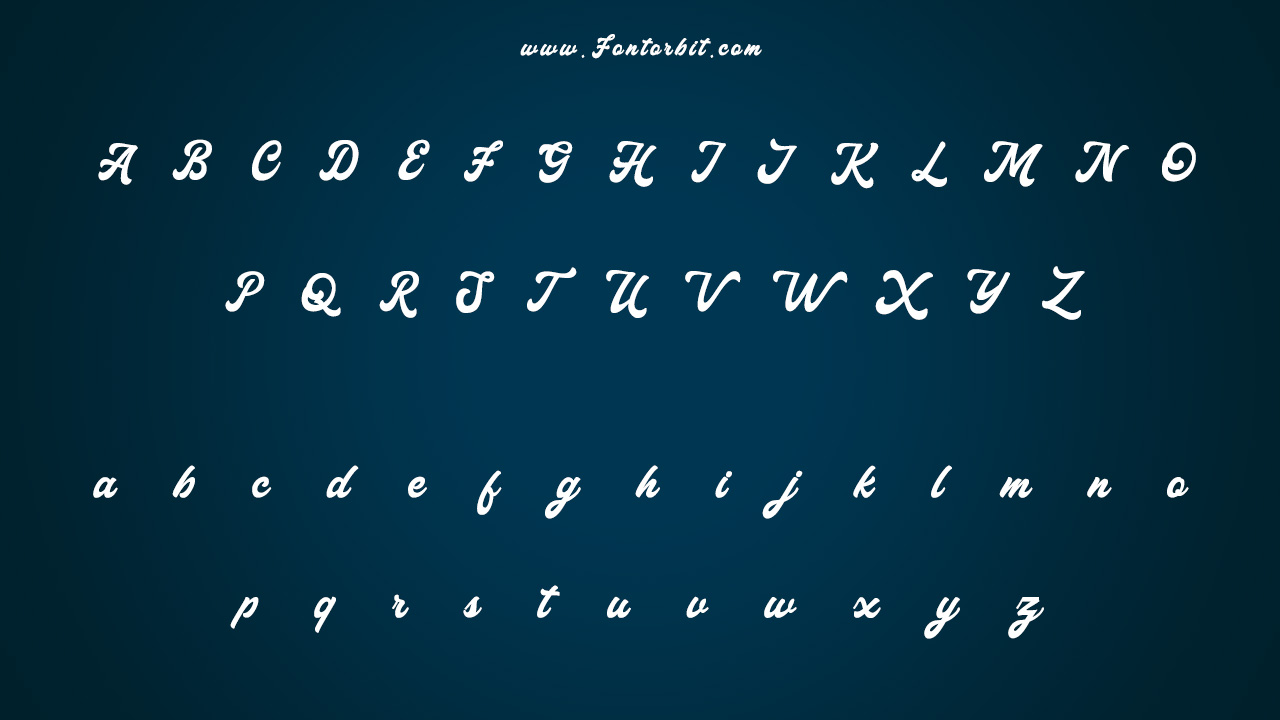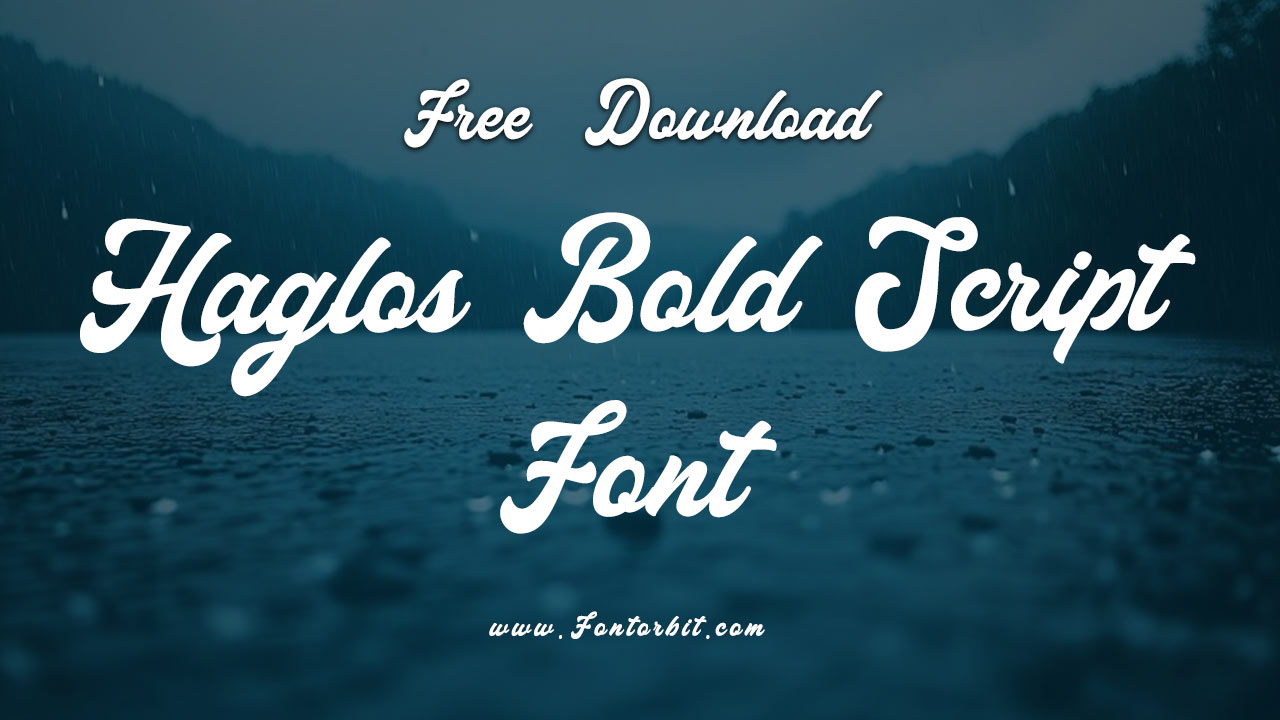
Haglos Bold Script is a captivating and stylish font designed by Vultype. Released on Creative Market, this typeface stands out for its bold and artistic script style. Part of the Haglos family, it offers an elegant touch to any design project.
Haglos Bold Script Family Includes
Haglos Bold Script is a single typeface, but it brings a unique and versatile script style that can be used across various design needs. This font is particularly known for its fluid and sophisticated letterforms, making it ideal for both digital and print projects.
a. Haglos Regular
Notable Uses Of Haglos Bold Script
Haglos Bold Script is perfect for a range of applications including wedding invitations, greeting cards, and branding materials. Its expressive and bold design makes it a great choice for projects that require a touch of elegance and personality.
- Greeting Cards
- Packaging
Haglos Bold Script is a versatile and elegant font that brings a bold yet sophisticated look to your designs. Whether for invitations, branding, or packaging, its unique style ensures your projects will stand out with a touch of class.
9.Are There Similar Fonts To Haglos Bold Script?
Yes, options like Alex Brush and Lobster provide similar script styles.